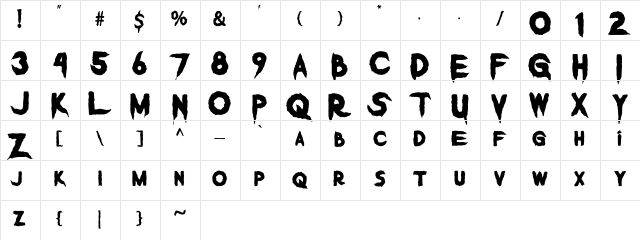
Vermillion Regular
| Designer | Arendxstudio |
Design Context for Vermillion Typeface
Vermillion is a composed and adaptable typeface that performs quietly and consistently across a wide range of design contexts.